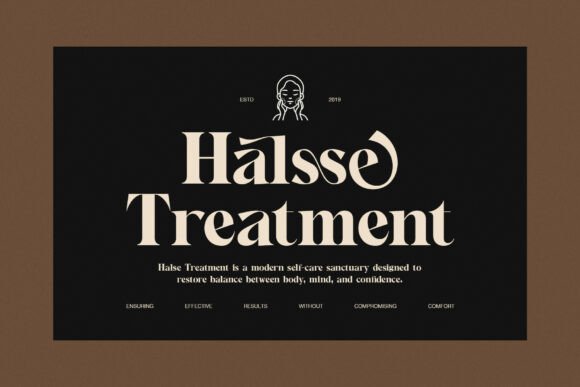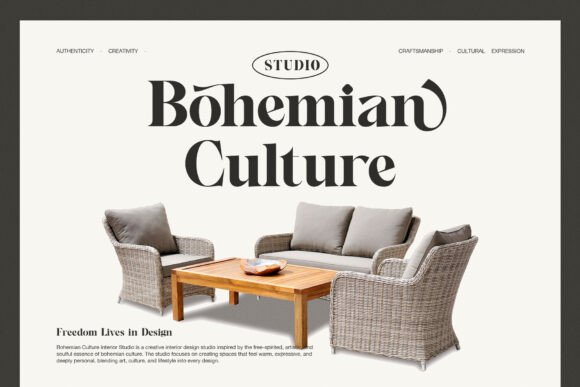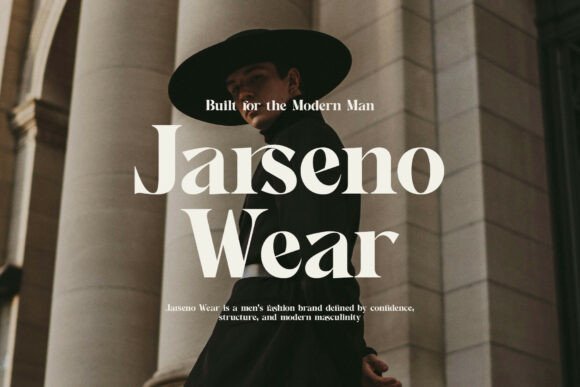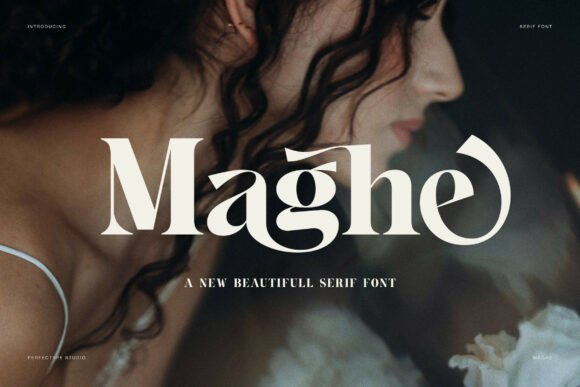
Introduction to Maghe Font
Maghe is an elegant modern serif font created to express confidence, warmth, and refined simplicity.
From the first impression, this font feels stylish and composed Therefore, it is a strong choice for designers who want typography that feels expressive yet controlled.
Maghe Font offers exceptional quality and versatility, making it a valuable addition to your design toolkit. Whether you’re creating for personal projects or commercial use, Maghe Font delivers professional results.